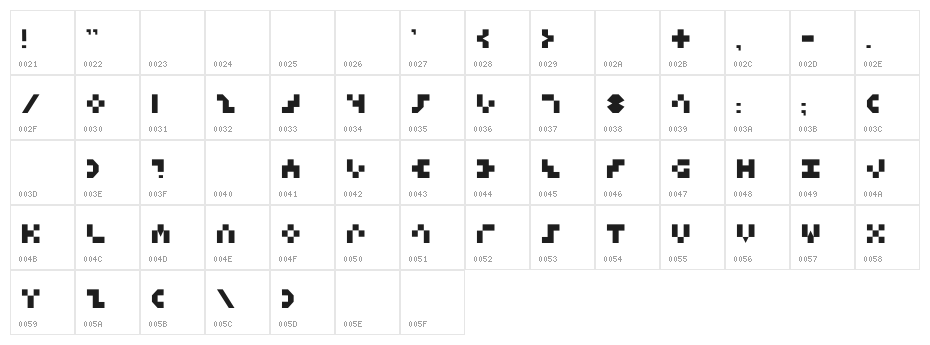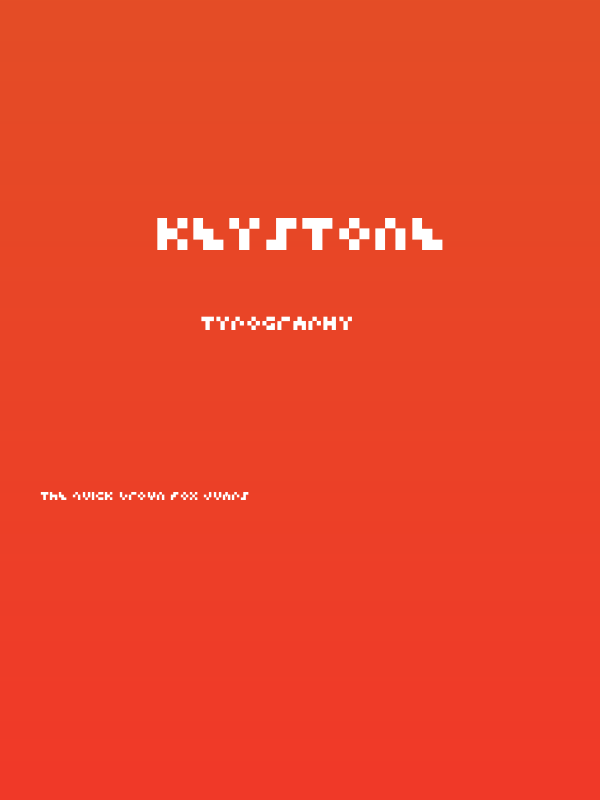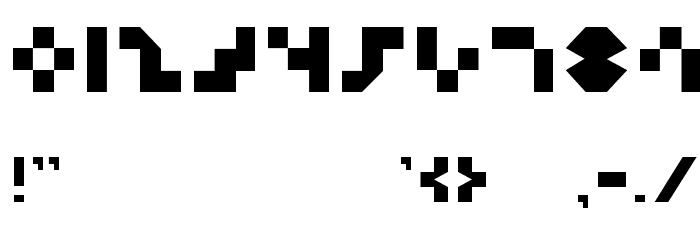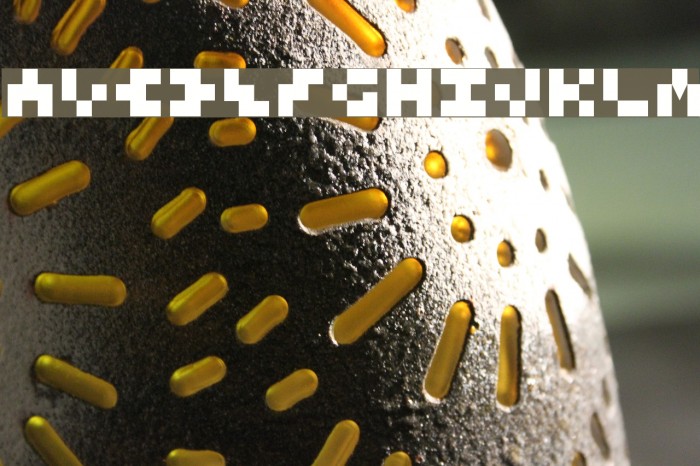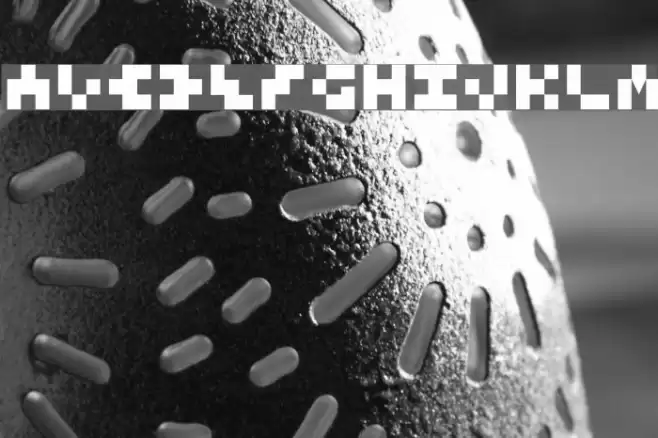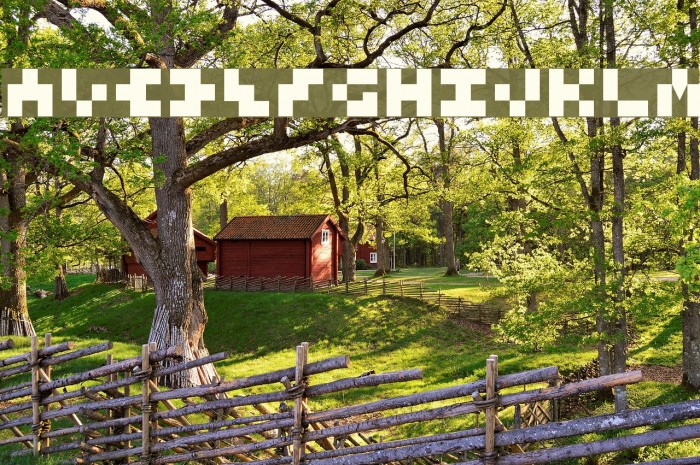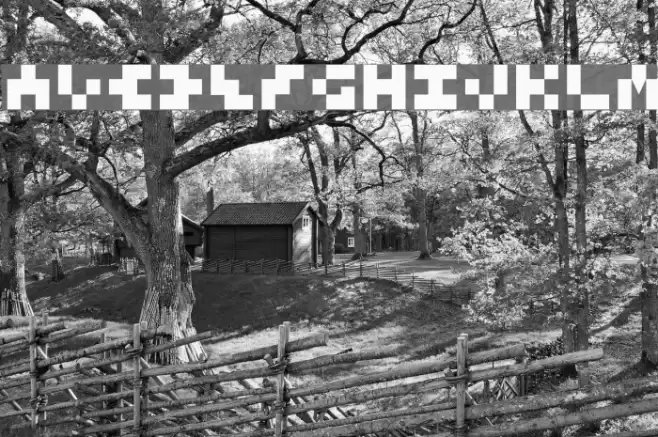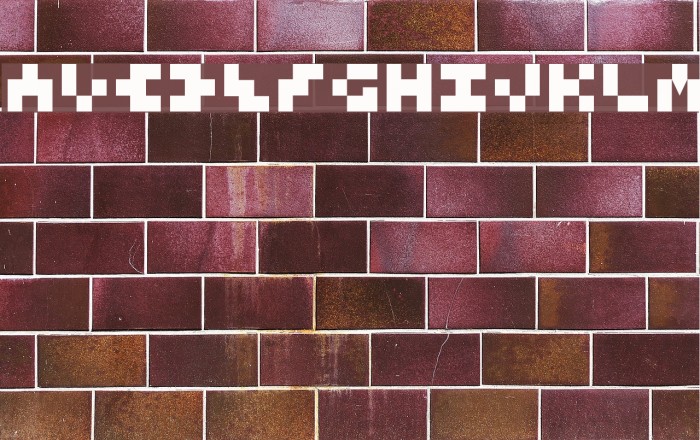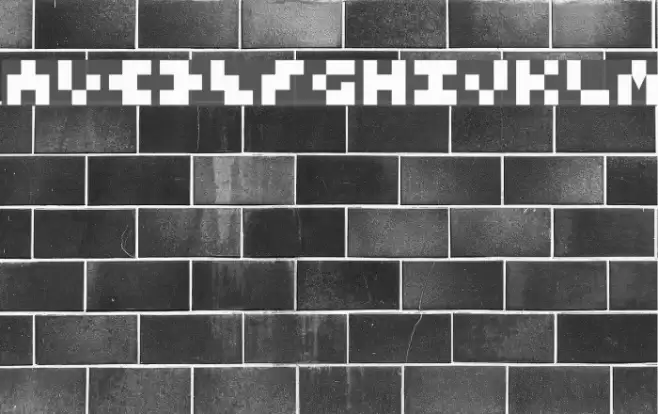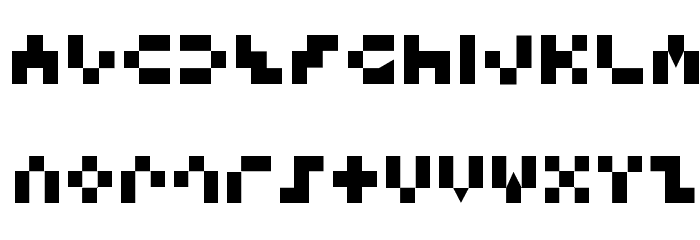
Keystone Font
Keystone Description
This font features a bold, geometric design with a pixelated, blocky appearance. Each character is constructed with a series of square and rectangular shapes, creating a digital, futuristic aesthetic. The uppercase and lowercase letters share a consistent style, maintaining uniformity across the alphabet. The numbers and special characters follow the same design principles, ensuring a cohesive look. The font's unique structure makes it stand out, offering a modern twist on traditional typefaces. Its distinct style is reminiscent of early digital displays or retro video game graphics, making it ideal for projects that aim to evoke a sense of nostalgia or technological advancement.
| Use Case | Logos, Headlines, Posters |
| Proposed Projects | Ideal for video game design, tech branding, digital art projects, and retro-themed posters. |